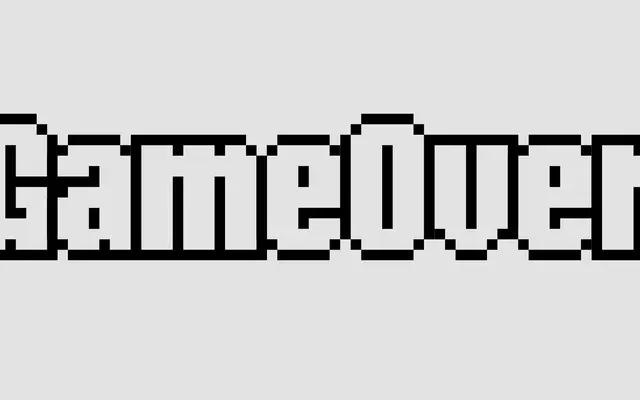
A single-weight pixel font modelled on typography from the golden age of 8-bit video games, optimised for low-resolution display use.
A pixel font drawn from the visual vocabulary of 8-bit arcade and home console games, offered in a single Regular weight. The design is built for low-resolution screens, though its retro character makes it a natural fit for gaming-adjacent branding, titles and editorial contexts. Only uppercase, lowercase and basic punctuation are included, reflecting the constrained character sets typical of its source era.
A pixel font drawn in the style of 8-bit video game typography, designed for low-resolution screens and display use. Its single weight and grid-based construction place it firmly in the display category.